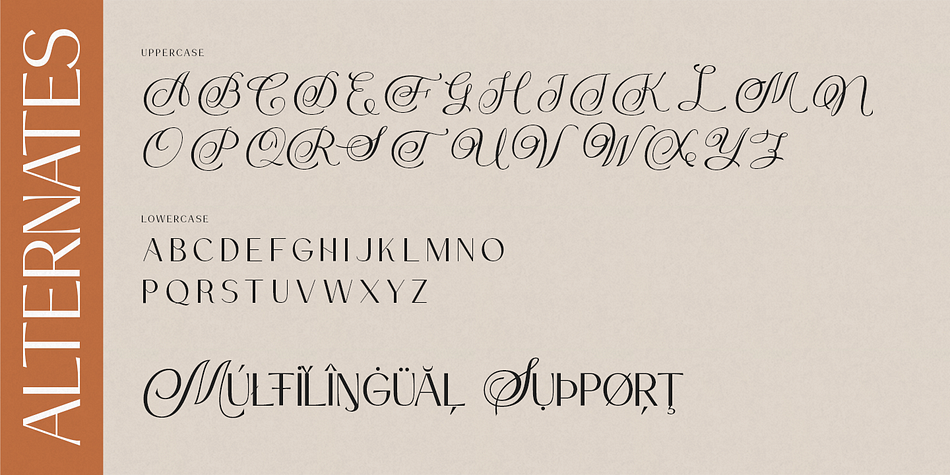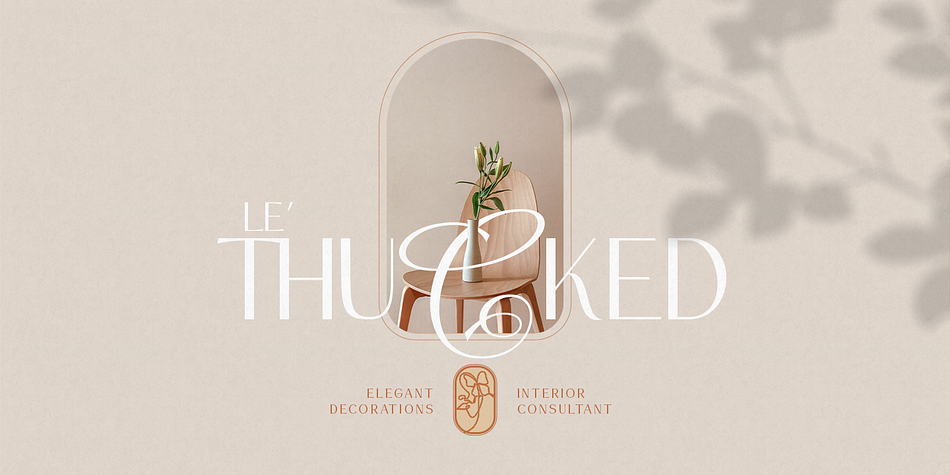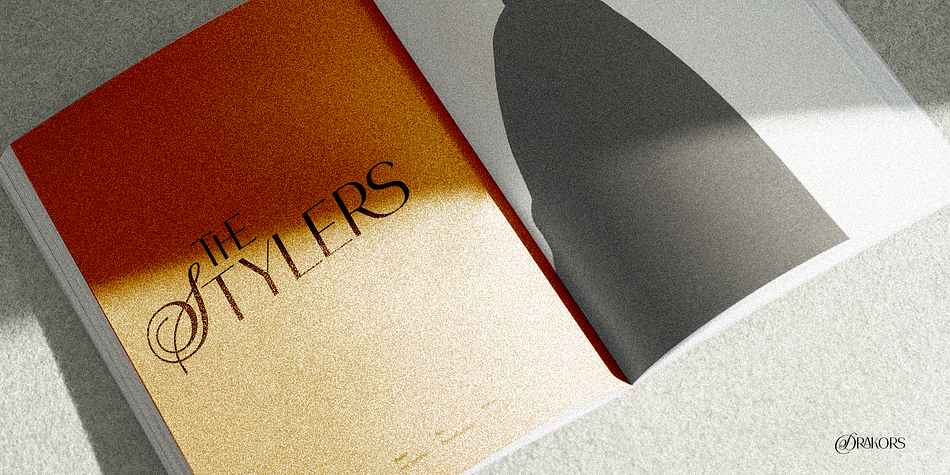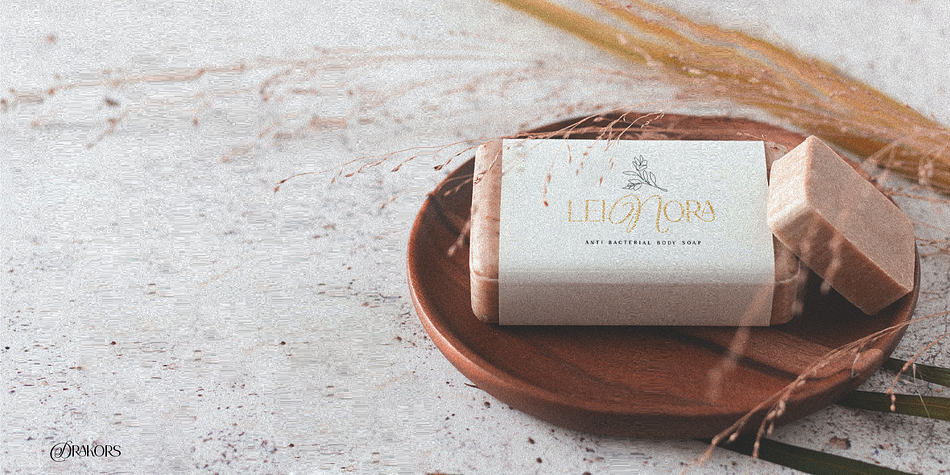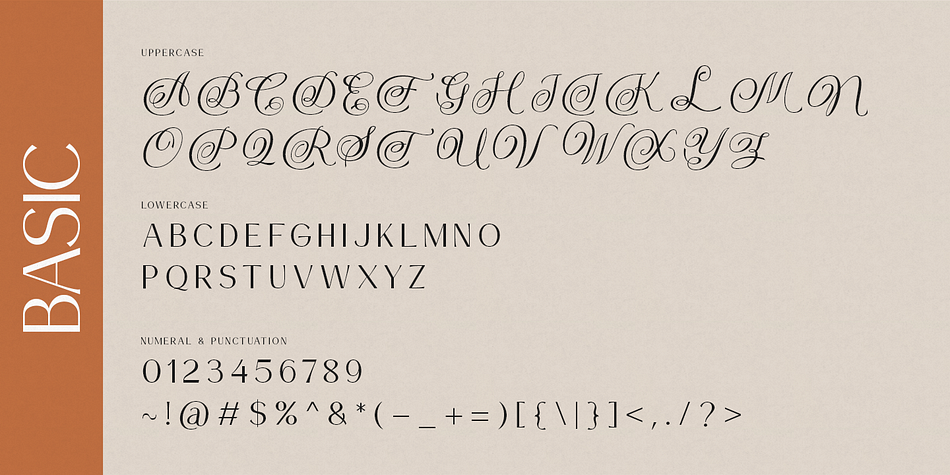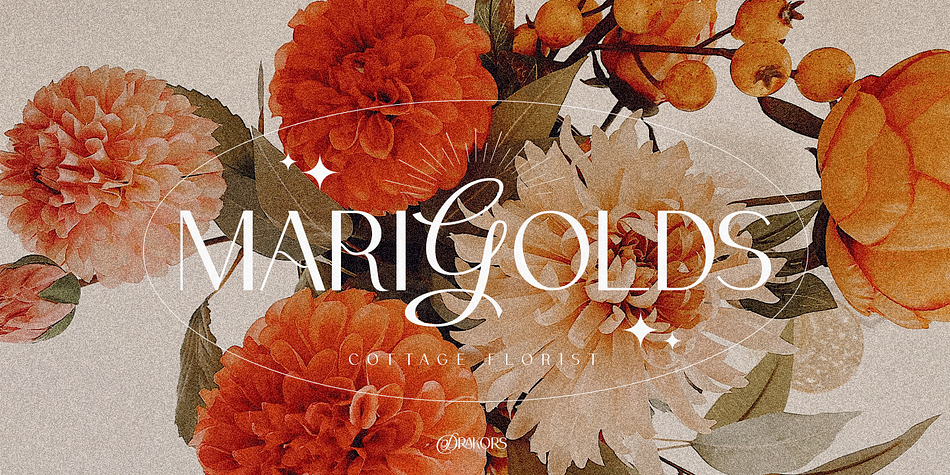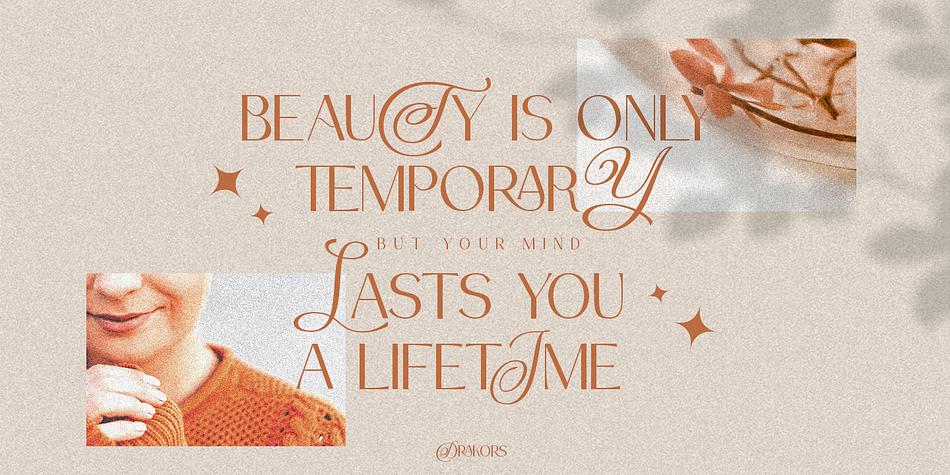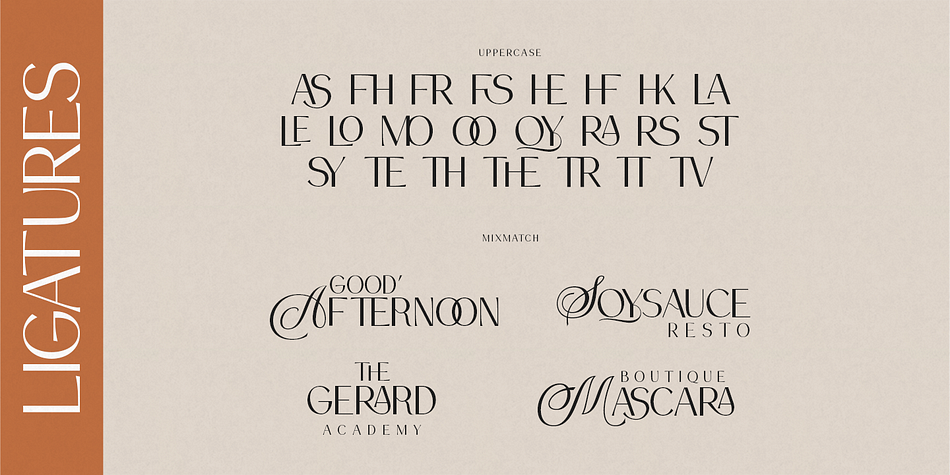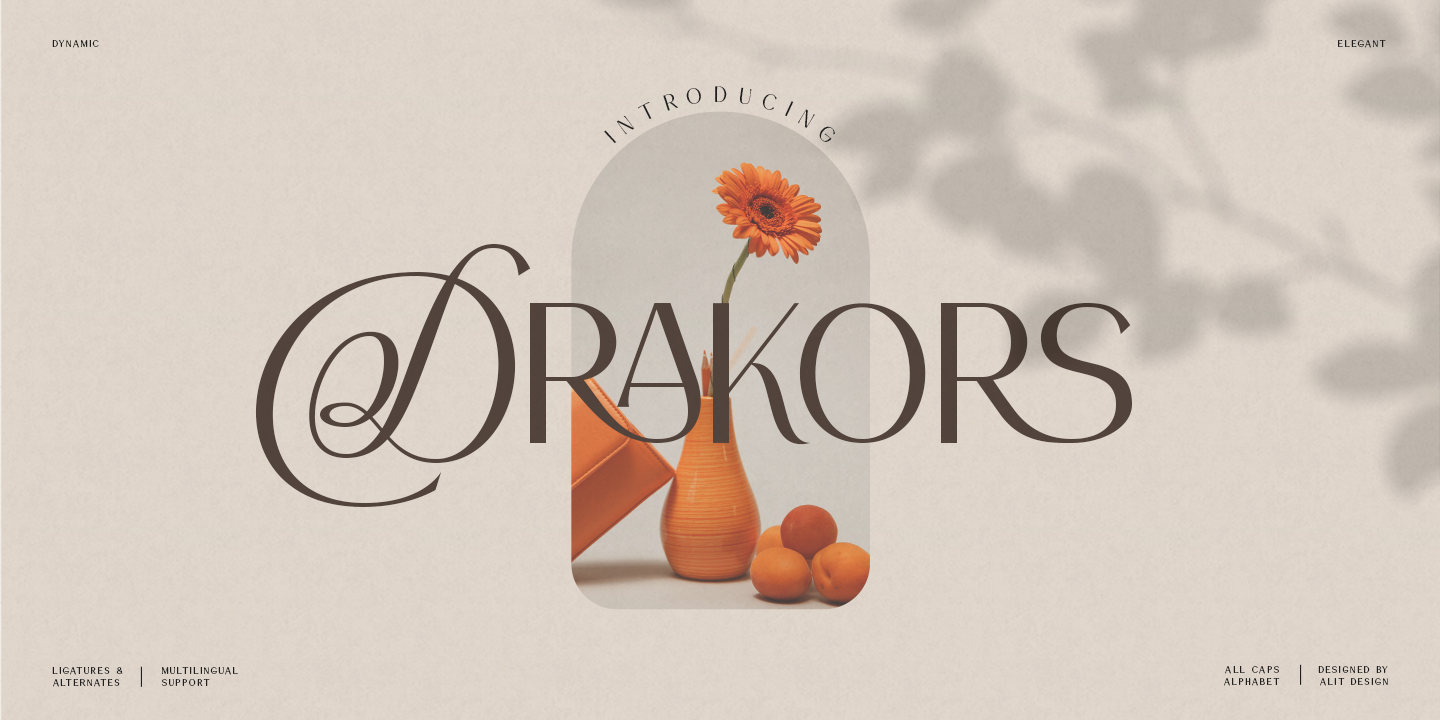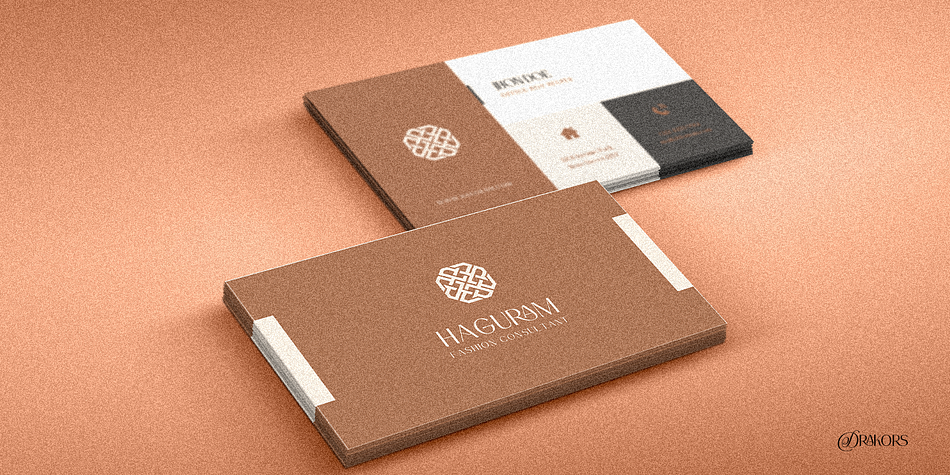
Designed by Alit Suarnegara, Drakors is a display sans and script font family published by Alit Design.
Presenting the DRAKORS typeface from alitdesign.
DRAKORS font is designed by combining an elegant script font with a simple and charming serif font style. This font has a modern serif style combined with elegant script-style letters that make the DRAKORS font look different and unique from the fonts you have on your computer collection.
DRAKORS is perfect for magazine cover designs, brochures, flyers. Instagram ads, Canva Design and so on with unique and modern concepts. besides that this font is very easy to use both in design and non-design programs because everything changes and glyphs are supported by Unicode (PUA).
The “DRAKORS"contains 550 glyphs with many unique and interesting alternative options.
Foundry | Alit Design |
Styles | Display Sans, Script |
Designer | Alit Suarnegara |